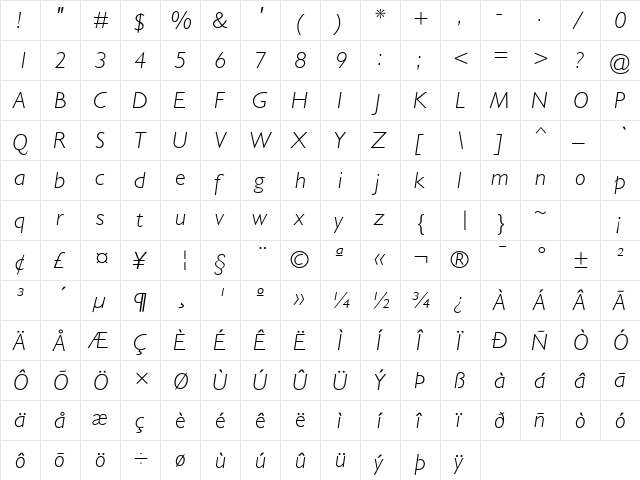
Garrison Light Sans ITALIC Font Preview
Design Context for Garrison Light Sans Typeface
Garrison Light Sans takes a measured approach to typography — its balanced proportions and neutral character make it a reliable workhorse for both digital and print work. Its italic angle brings a sense of urgency and motion to the letterforms. Its slender proportions lend an understated elegance to any composition.
Pro Tip: Use Garrison Light Sans for emphasis, pull quotes, and subheadings where its slanted energy can add rhythm to the layout.